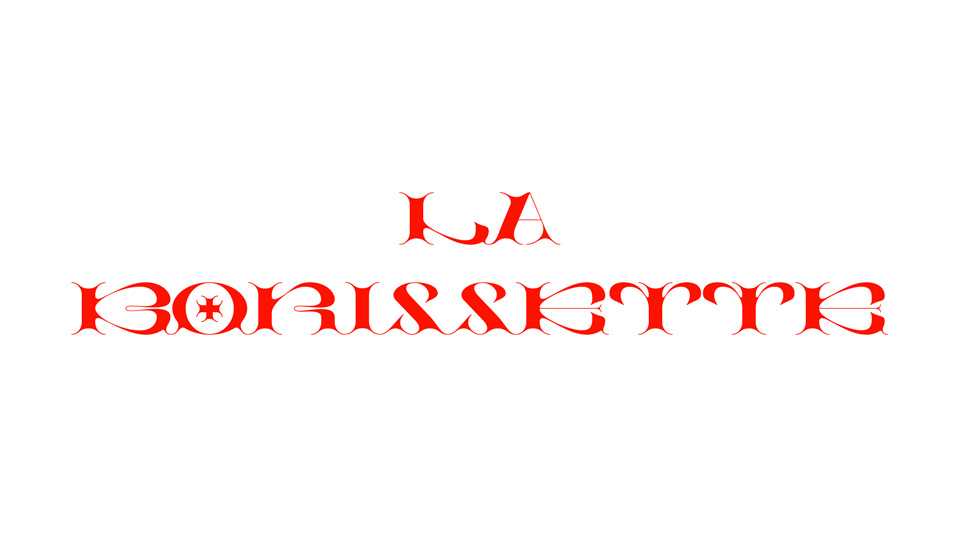
Download La Borissette font, a decorative high contrast display typeface, inspired by the letterforms of the antique ages. Unique and fancy, La Borissette is perfect for eye-catching typographic artworks.
Designer: Bastien Tessanne